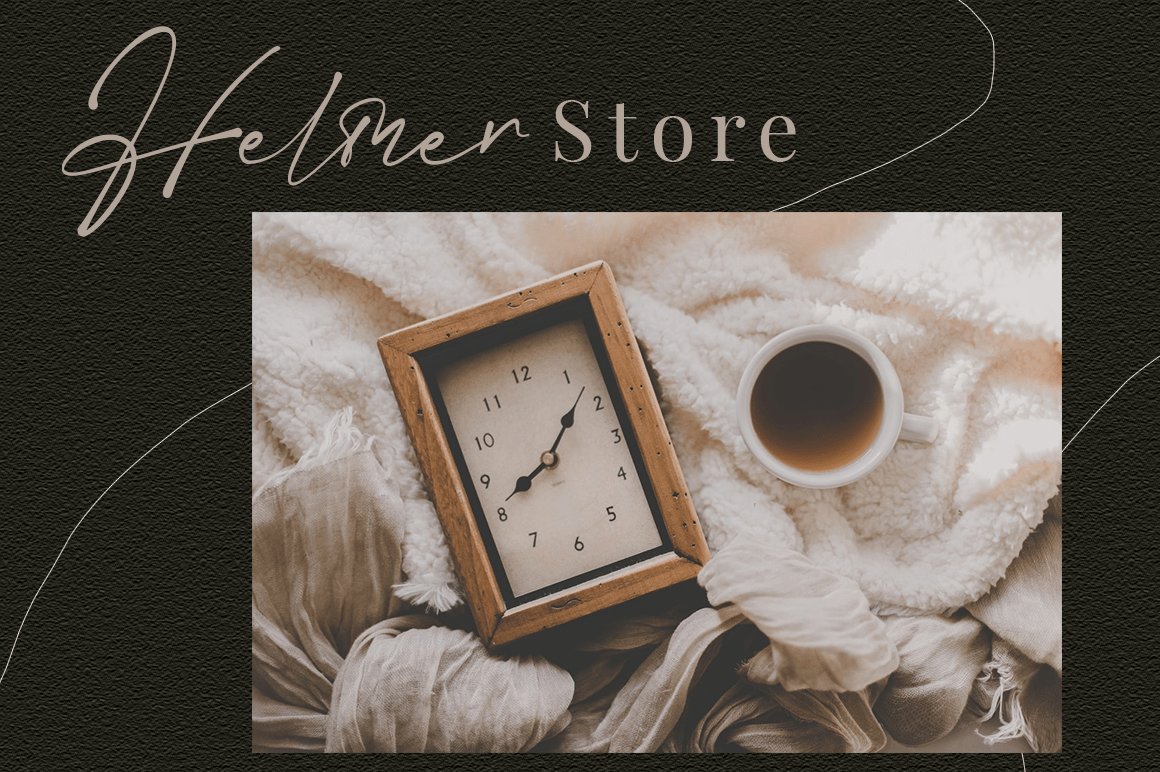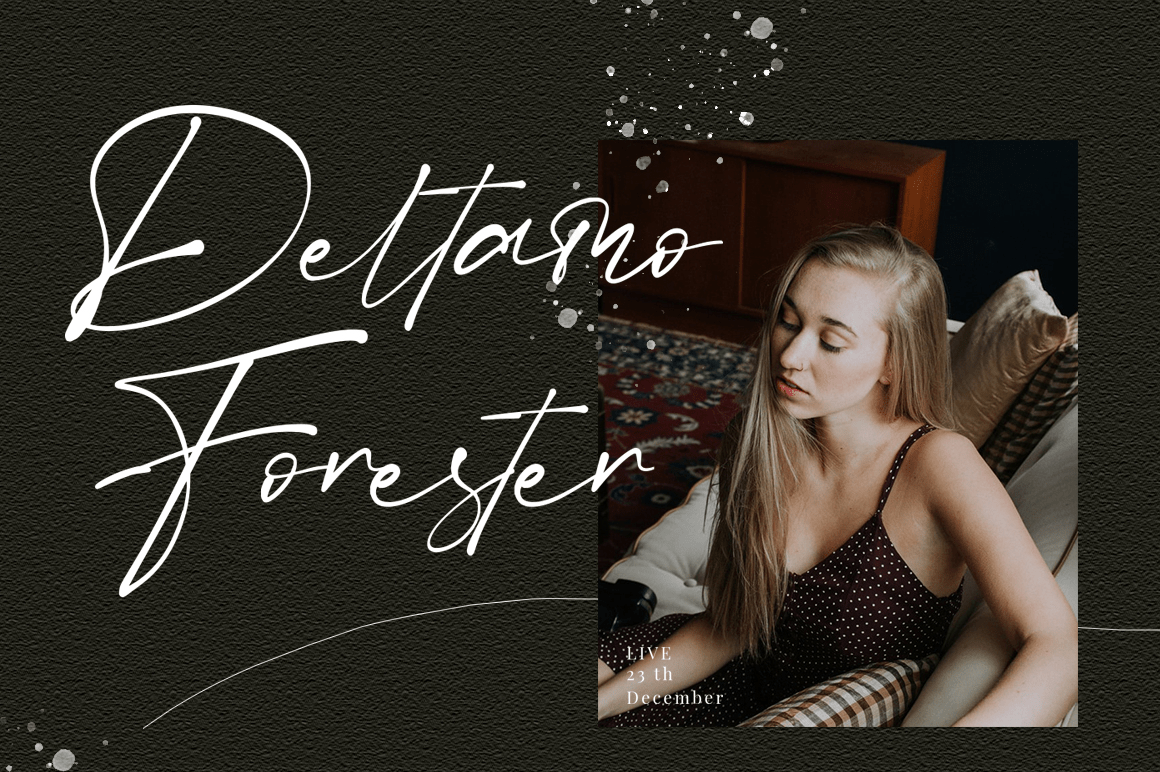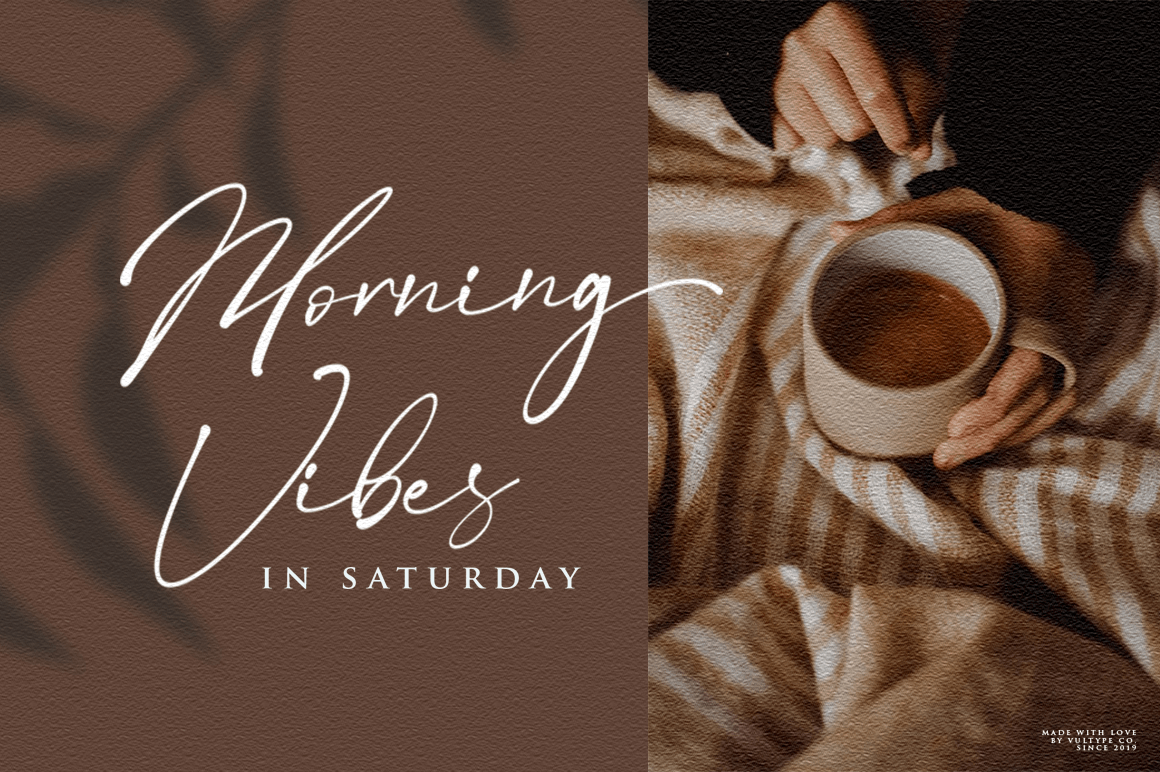
About Betmo
Betmo Signature Font is glorious script with beautiful ligature and alternate font. Inspired by luxury fashion. Contemporary handwriting fonts with ligatures and alternative styles ready to add unique look and bloom on your design It easily coordinates…